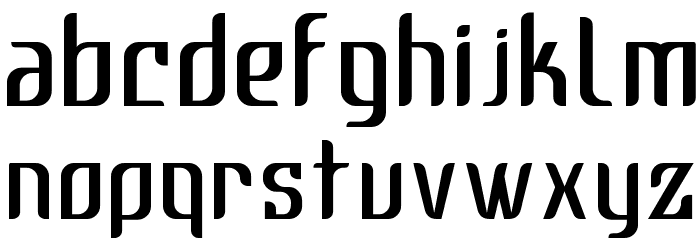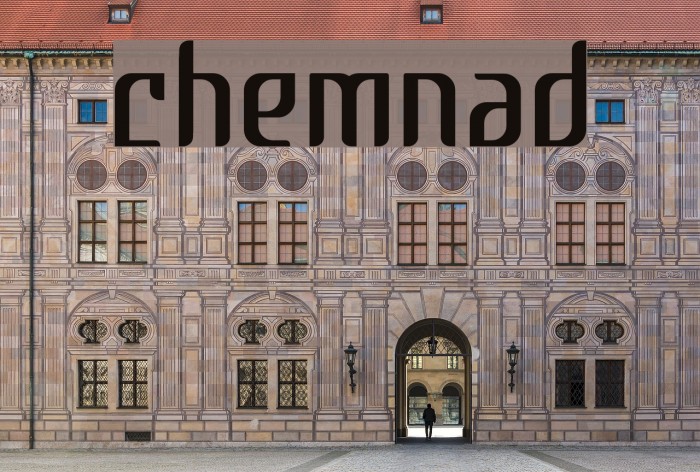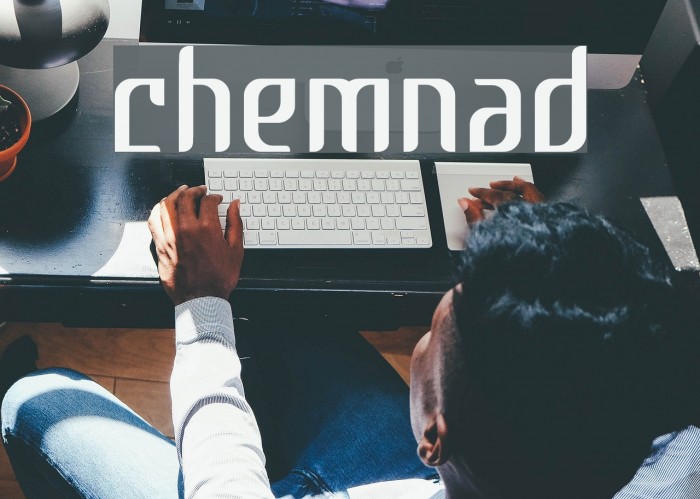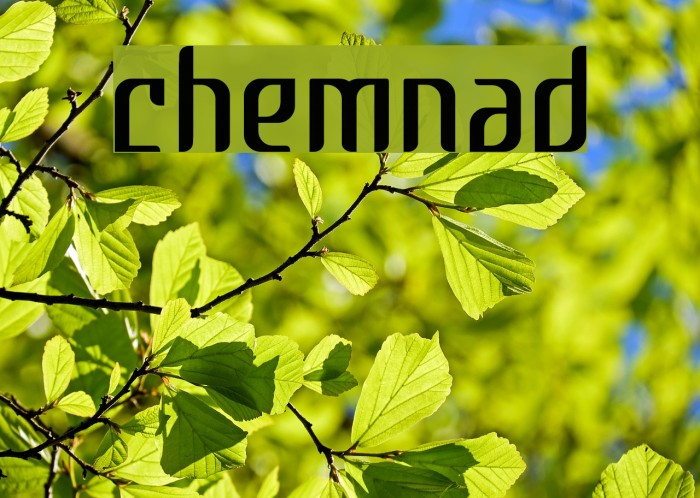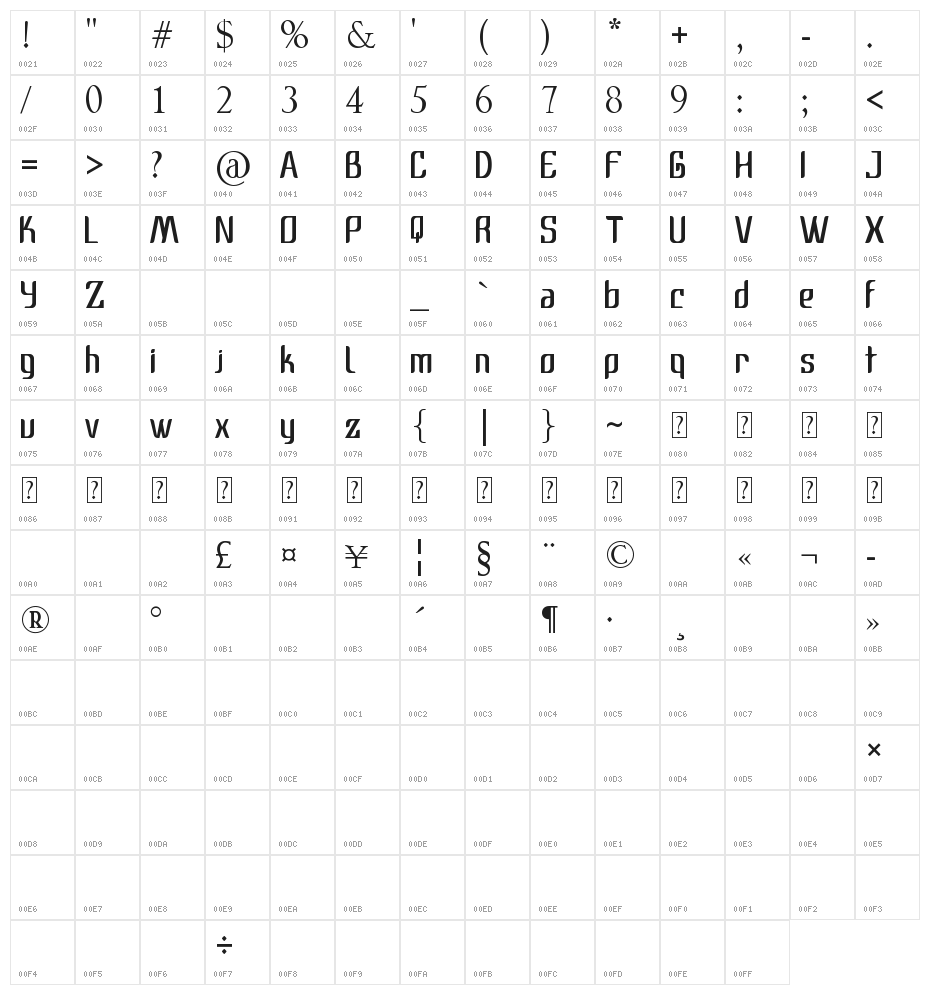
chemnad Font
This font features a modern and sleek design with a unique blend of geometric and rounded elements. The uppercase letters are bold and structured, with a slight curvature that adds a touch of elegance. The lowercase letters maintain a consistent style, offering a harmonious flow between characters. Numbers are clear and distinct, ensuring readability. Special characters are designed with the same attention to detail, making them stand out while remaining cohesive with the overall style. This font is versatile, suitable for various design projects that require a contemporary and stylish appearance.
A modern, sleek font with geometric and rounded elements, perfect for stylish designs.
- Proposed Projects: Ideal for branding, advertising, digital media, and editorial design projects.
- Use Case: Headlines, Logos, Branding